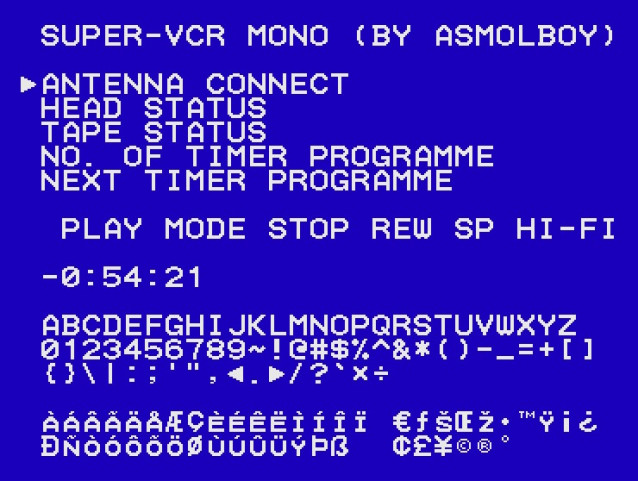
Super-VCR Mono Font
Super-VCR Mono Font by ASmolBoy. A pixelated font based on the on-screen displays of VHS players/VCR’s. Font size of 12px (or multiple of) is recommended to get nice square pixels. No antialising. Includes support for accented, currency, and other miscellaneous characters.